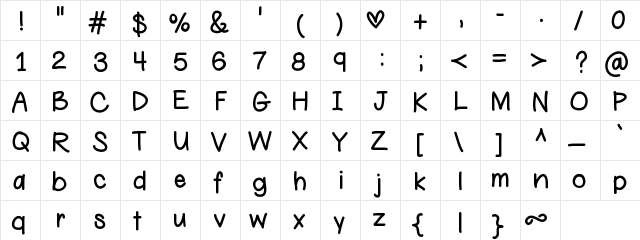
chunkamonk Medium
Design Context for chunkamonk Typeface
chunkamonk offers clean, dependable letterforms without strong stylistic allegiance, making it a practical choice for designers who need flexibility.
Pro Tip: Pair chunkamonk with a font of contrasting weight or personality to build a more expressive typographic hierarchy.